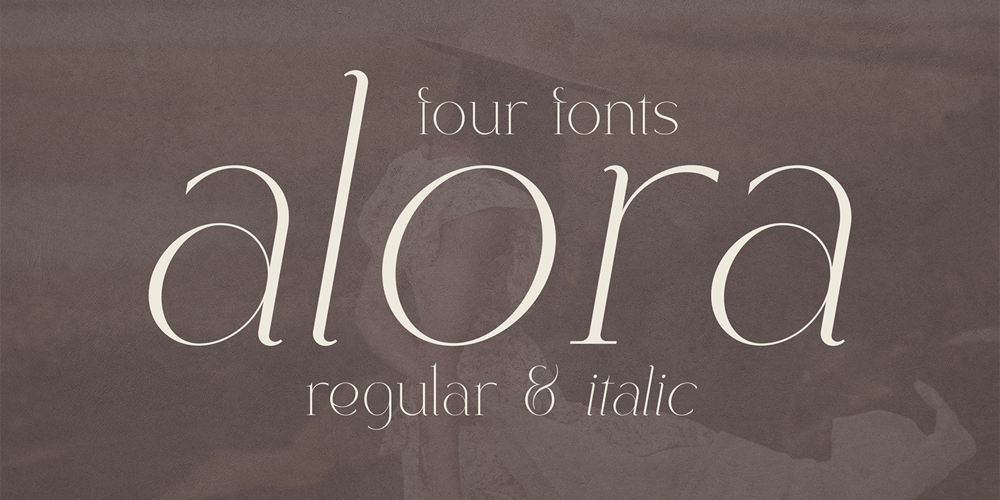
Alora Font Family was designed by Vladimir Fedotov, Plamen Petrov and published by VP Creative Shop. Alora contains 4 styles and family package options. Introducing Alora – serif typeface – 4 fontsAlora is elegant and fragile typeface loaded with 4 fonts and multilingual support. It’s a very versatile font that works great in large and small sizes.Alora is perfect for branding projects, home-ware designs, product packaging, magazine headers – or simply as a stylish text overlay to any background image.FEATURES Uppercase, lowercase, numeral, punctuation & Symbol Regular Style 1 and 2 Italic Multilingual support No special software is required to type out the standard characters of the Typeface. Canva friendly Feel free to contact me if you have any questions!Mock ups and backgrounds used are not included.Thank you! Enjoy!